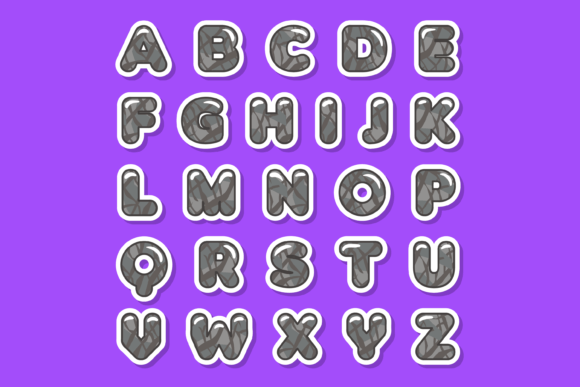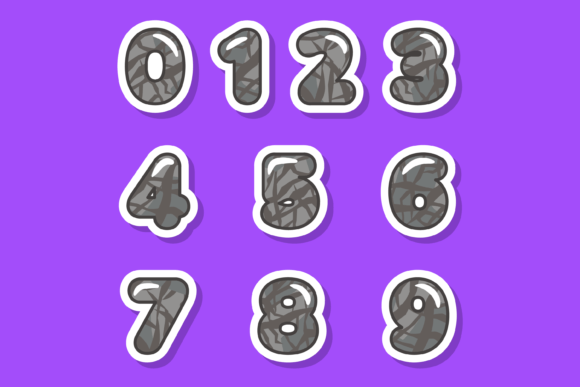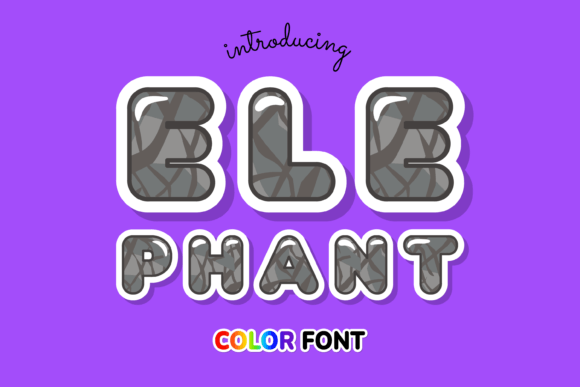
Introducing Elephant Font: The Coolest Color Font for Your Creative Projects
Are you looking for a font that adds a touch of whimsy and fun to your designs? Look no further than Elephant Font, an incredibly cool color font designed in the style of Animal. This versatile font is perfect for custom designs, DIY crafts, and any creation that requires a lovely touch. In this article, we’ll dive into the features and benefits of Elephant Font, and explore how you can use it to take your designs to the next level.
What Makes Elephant Font So Special?
Elephant Font is a color font, specifically designed as an Opentype-SVG file. This means that it’s not just a simple black and white font, but a vibrant and colorful addition to your design toolkit. The font is carefully crafted to bring a playful and fun vibe to your projects, making it perfect for a wide range of applications, from crafting and DIY projects to professional design work.
With Elephant Font, the creative possibilities are endless. Use it to add a pop of color and personality to your:
- Custom designs: From greeting cards to invitations, Elephant Font is the perfect way to add a touch of whimsy to your designs.
- DIY crafts: Whether you’re making signs, banners, or other DIY projects, this font is sure to bring a smile to your face.
- Commercial projects: Add a professional touch to your branding, packaging, or advertising materials with this unique and eye-catching font.
Tips and Tricks for Using Elephant Font
To get the most out of Elephant Font, here are a few tips and tricks to keep in mind:
- Experiment with different colors: While the font comes with a pre-designed color palette, feel free to experiment with different colors to match your brand or design style.
- Play with font sizes: Elephant Font looks great at a range of font sizes, from small and delicate to large and bold.
- Combine with other fonts: Try pairing Elephant Font with other fonts to create a unique and eye-catching design.
Why Choose Elephant Font?
So why choose Elephant Font over other fonts on the market? Here are just a few reasons:
- Unique and eye-catching design: This font is sure to grab attention and add a touch of personality to your designs.
- High-quality and versatile: Elephant Font is designed to work seamlessly across a range of design software and applications.